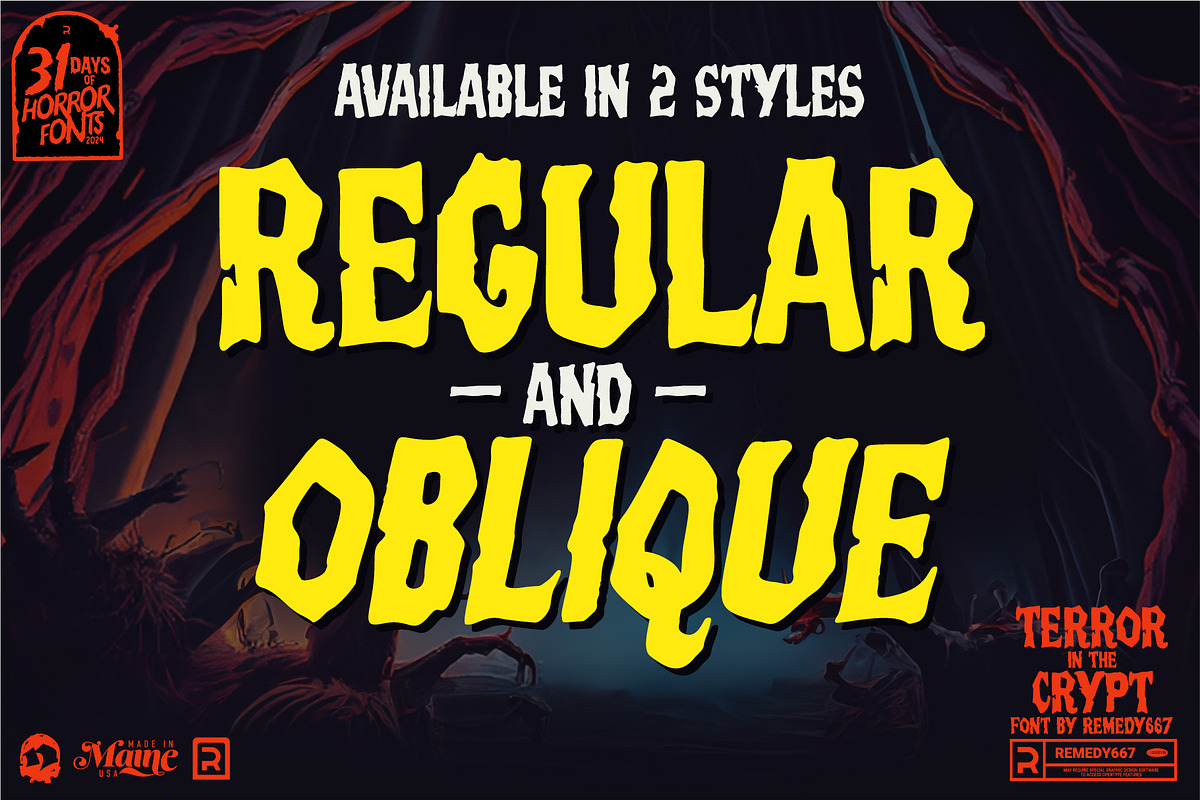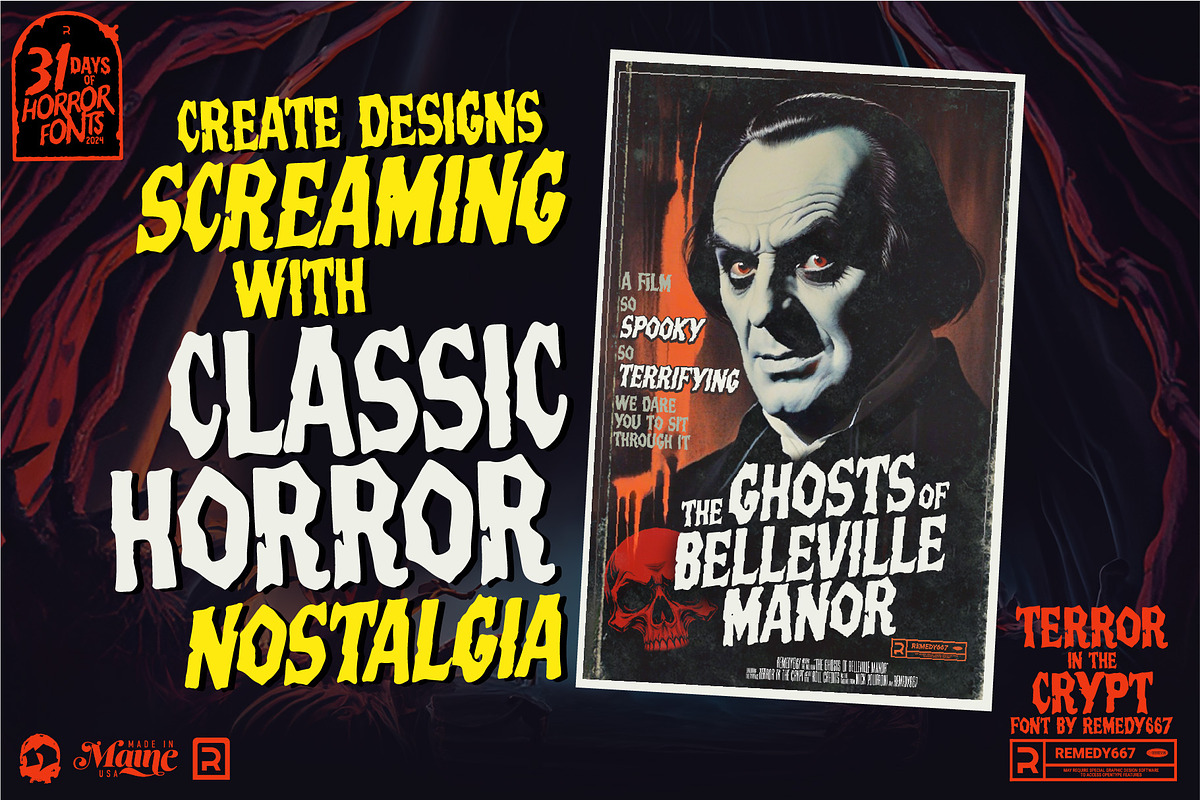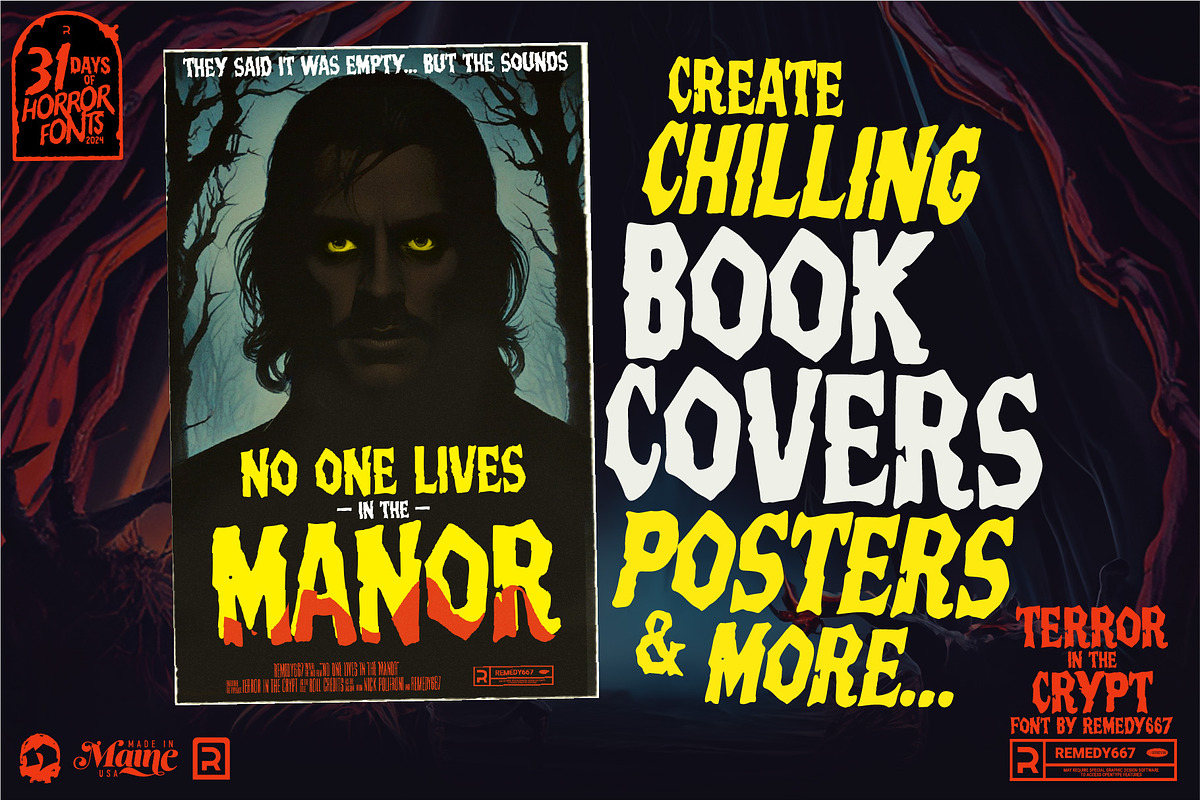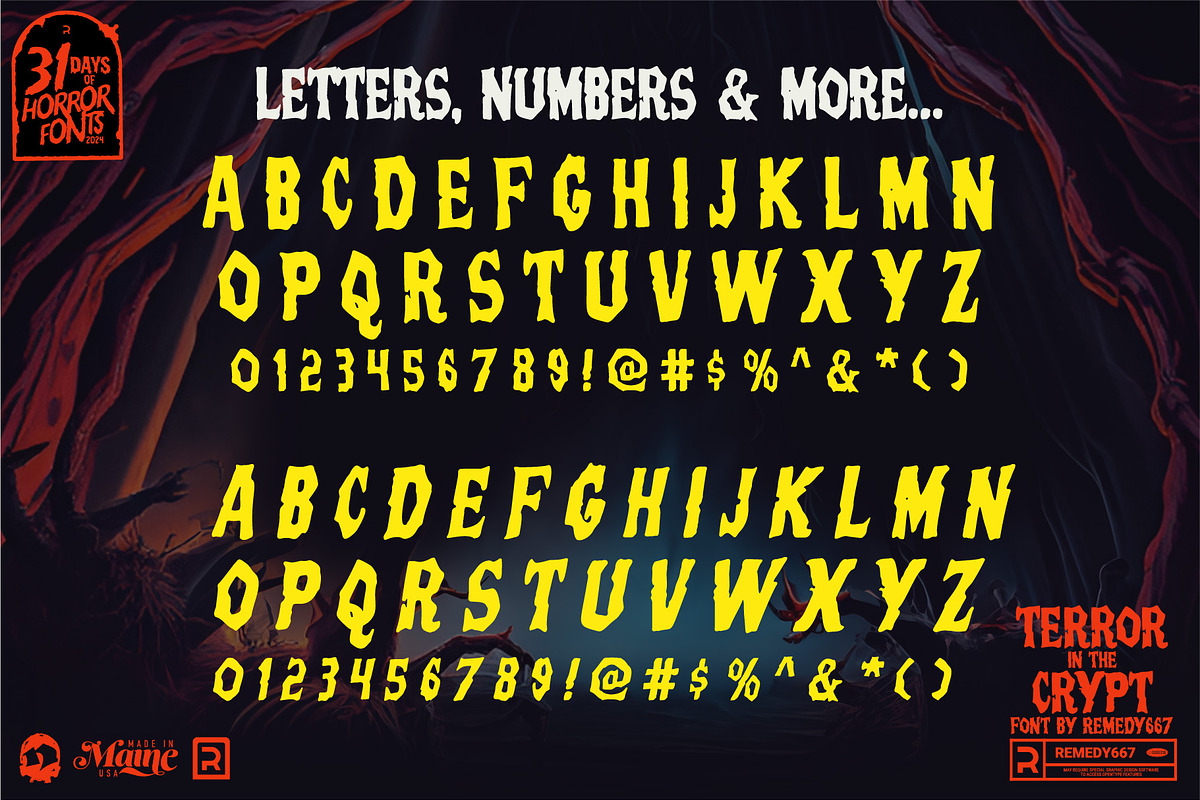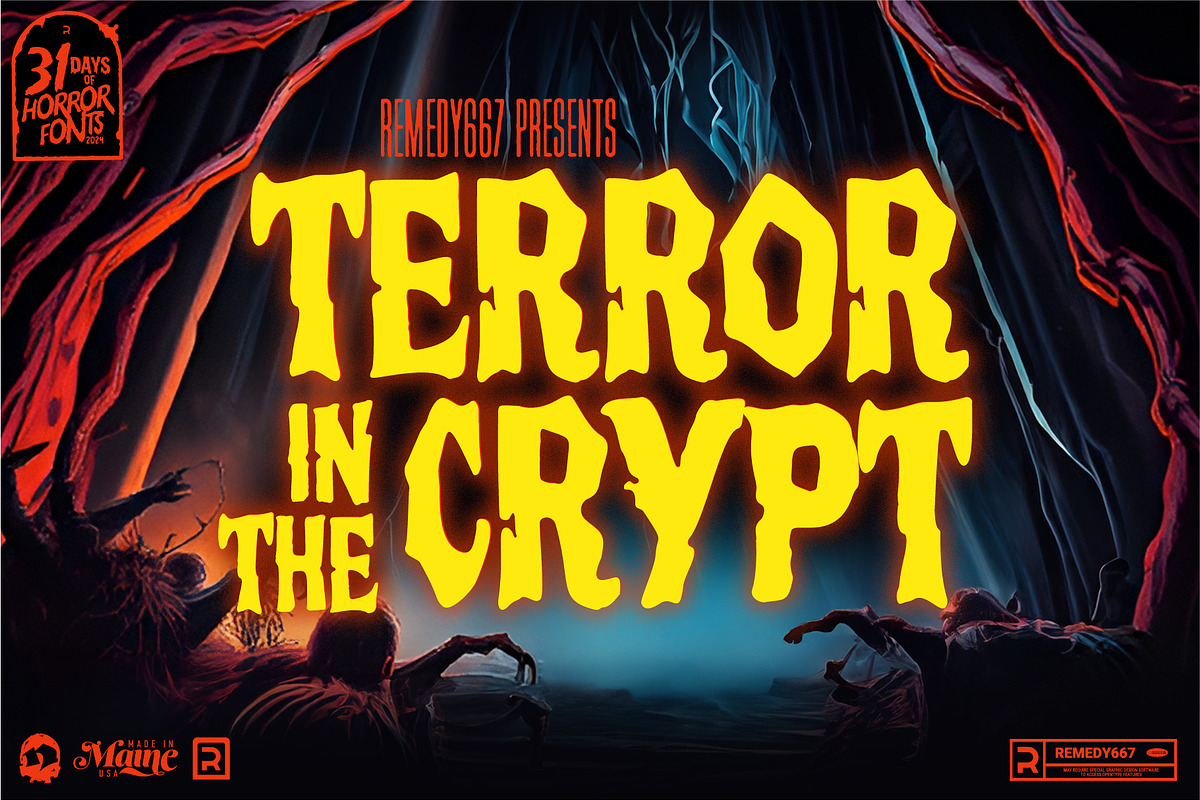
Terror in the Crypt
Unlock the chilling essence of classic horror with Terror in the Crypt! This captivating font transports you straight back to the golden age of Hammer Horror, featuring striking 1970s lettering that evokes a sense of nostalgia. Whether you’re designing posters, logos, apparel, or artwork, Terror in the Crypt adds an unmistakable retro vibe that demands attention.
Give you projects the gothic horror they deserve! Terror in the Crypt isn’t just a font; it transforms your designs into classic works of Hammer Horror influenced nightmare fuel. Don’t miss out on elevating your creative game. Add Terror in the Crypt to your design toolkit, today.
- Includes Regular & Oblique Versions
- Versatile and Unique with Timeless Gothic Appeal